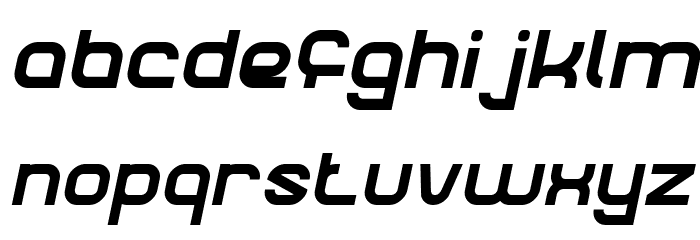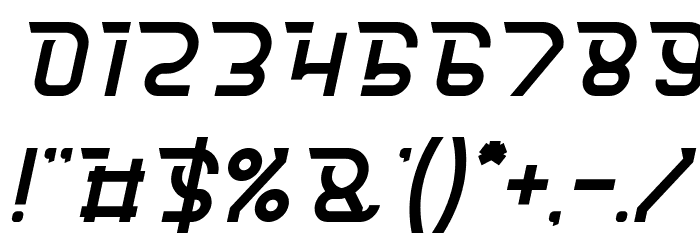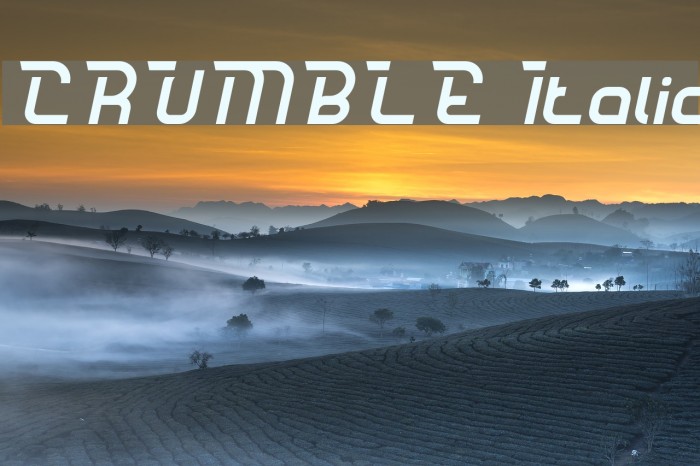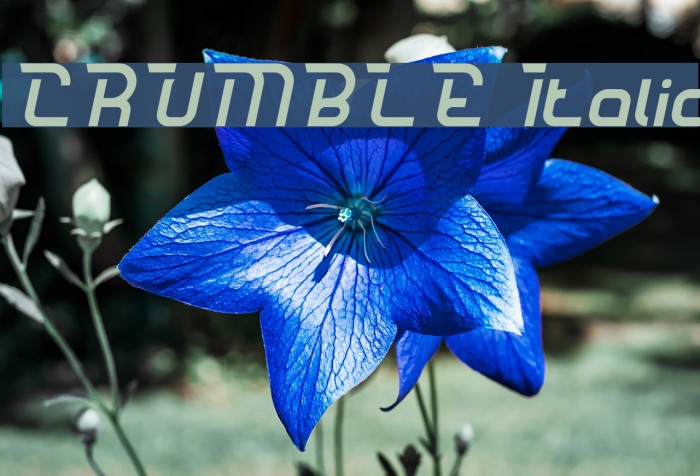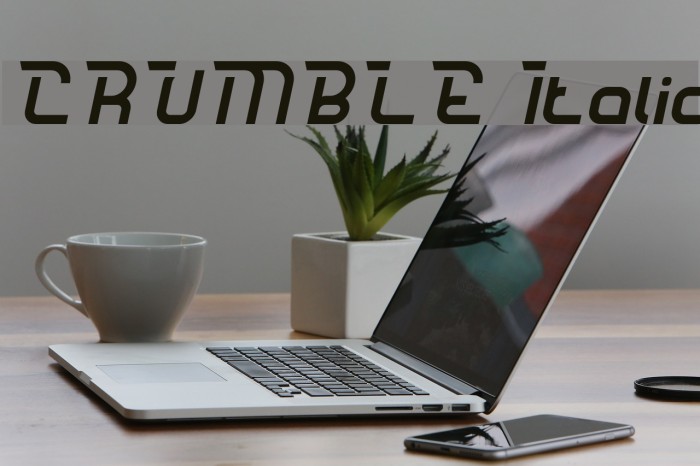
CRUMBLE Italic Font
This font features a bold, italicized style with a modern and dynamic appearance. The characters are slightly slanted, giving a sense of motion and energy. The strokes are thick and consistent, providing a strong visual impact. The design incorporates sharp angles and clean lines, making it suitable for attention-grabbing headlines or logos. The numerals and special characters maintain the same bold and angular style, ensuring consistency across all elements.
A bold, italicized font with a modern, dynamic style and sharp angles.
- Proposed Projects: Ideal for sports branding, dynamic posters, modern logos, and impactful headlines.